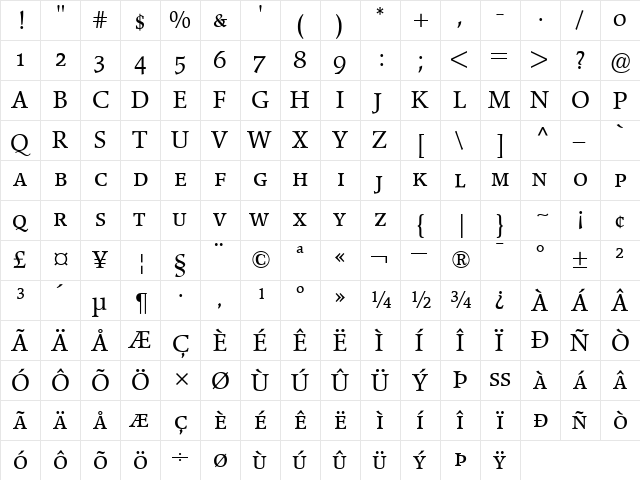
Poppl-PontifexBEwithSmallCaps Roman
Design Context for Poppl-PontifexBEwithSmallCaps Typeface
Poppl-PontifexBEwithSmallCaps takes a measured approach to typography — its balanced proportions and neutral character make it a reliable workhorse for both digital and print work.